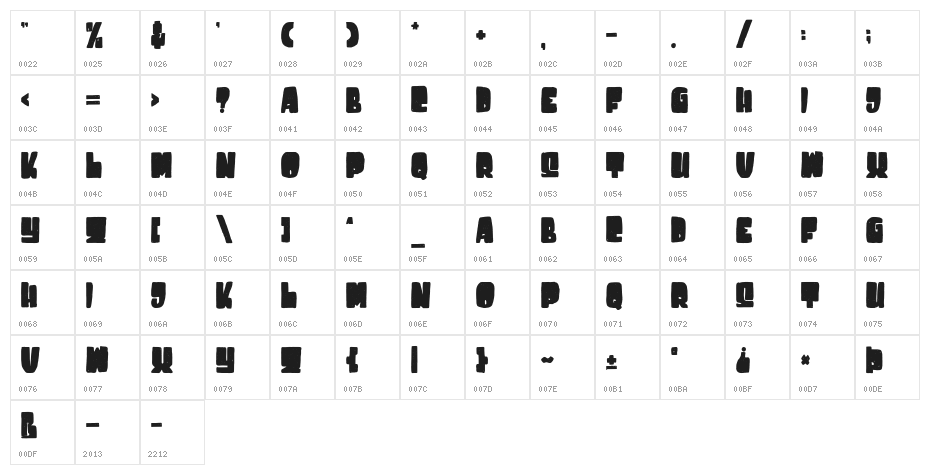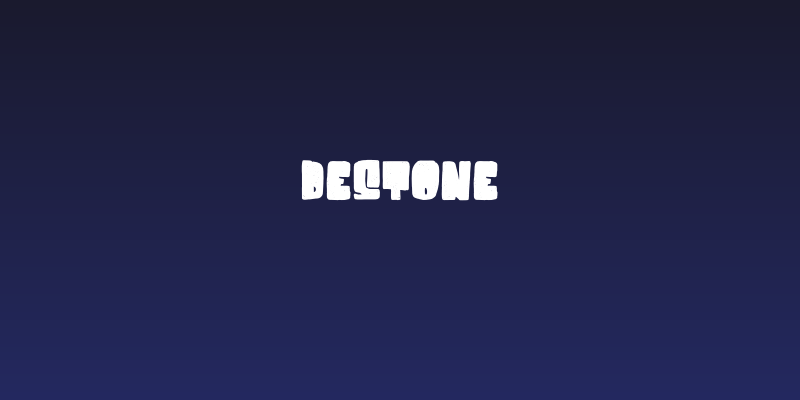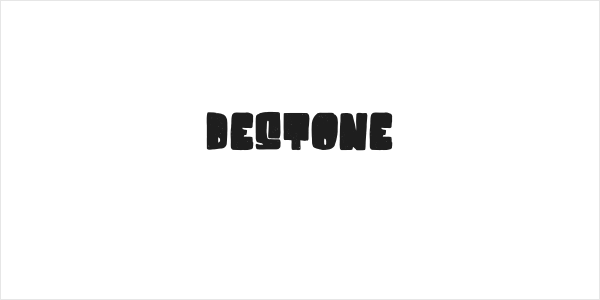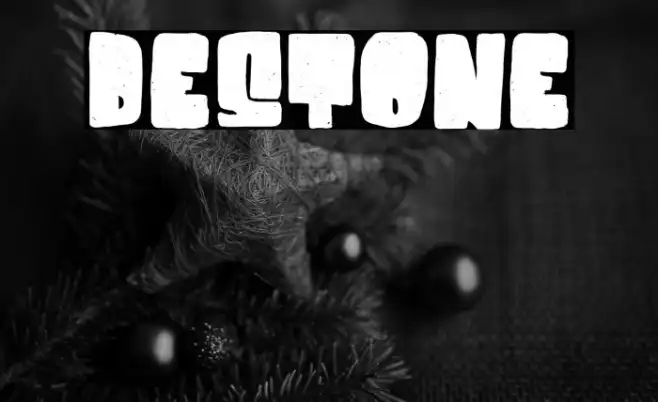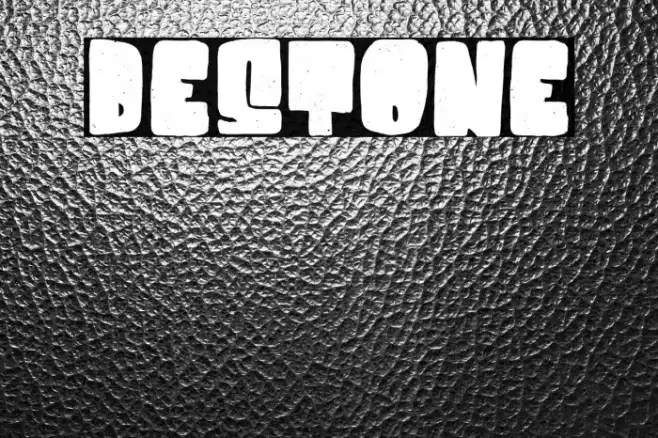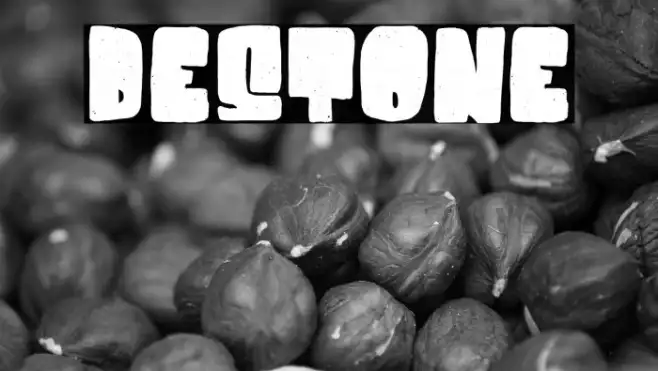
Destone Font
Destone Description
This font features a bold and chunky design with a distressed, textured appearance that gives it a rugged and vintage feel. The characters are wide and have a blocky structure, making them stand out prominently. The texture within each letter adds a unique, worn-out look, reminiscent of old printing techniques or weathered signage. The uppercase and lowercase letters maintain a consistent style, with the lowercase being slightly smaller but equally bold. The numbers and special characters follow the same design principles, ensuring uniformity across the font. This style is particularly eye-catching and can add a strong visual impact to any design.
| Proposed Projects | Ideal for posters, logos, branding, and any project needing a strong, vintage aesthetic. |